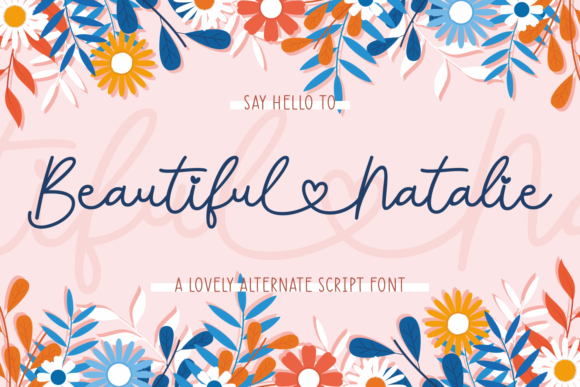
Unleash your creativity and embark on a typographic journey with the mesmerizing Beautiful Natalie Font, a script font that exudes elegance and sophistication. Inspired by the timeless beauty of classic calligraphy, this font effortlessly combines tradition with a modern twist, leaving an indelible mark on your designs.
With its graceful curves and impeccable form, Beautiful Natalie Font captivates the eye, adding a touch of charm and personality to any project it adorns. Whether you're crafting logos, branding materials, wedding invitations, or social media graphics, this versatile font is your perfect companion, transforming your words into works of art.
But what truly sets Beautiful Natalie Font apart is its versatility. Its PUA encoding grants you effortless access to a treasure trove of glyphs and swashes, empowering you to add intricate embellishments and flourishes to your designs. Unleash your imagination and create captivating compositions that leave a lasting impression.
As a modern UI font, Beautiful Natalie Font seamlessly blends with the digital landscape. Its clean lines and legible characters ensure effortless readability on screens of all sizes, making it an ideal choice for websites, apps, and user interfaces. Elevate your digital presence and captivate your audience with typography that speaks volumes.